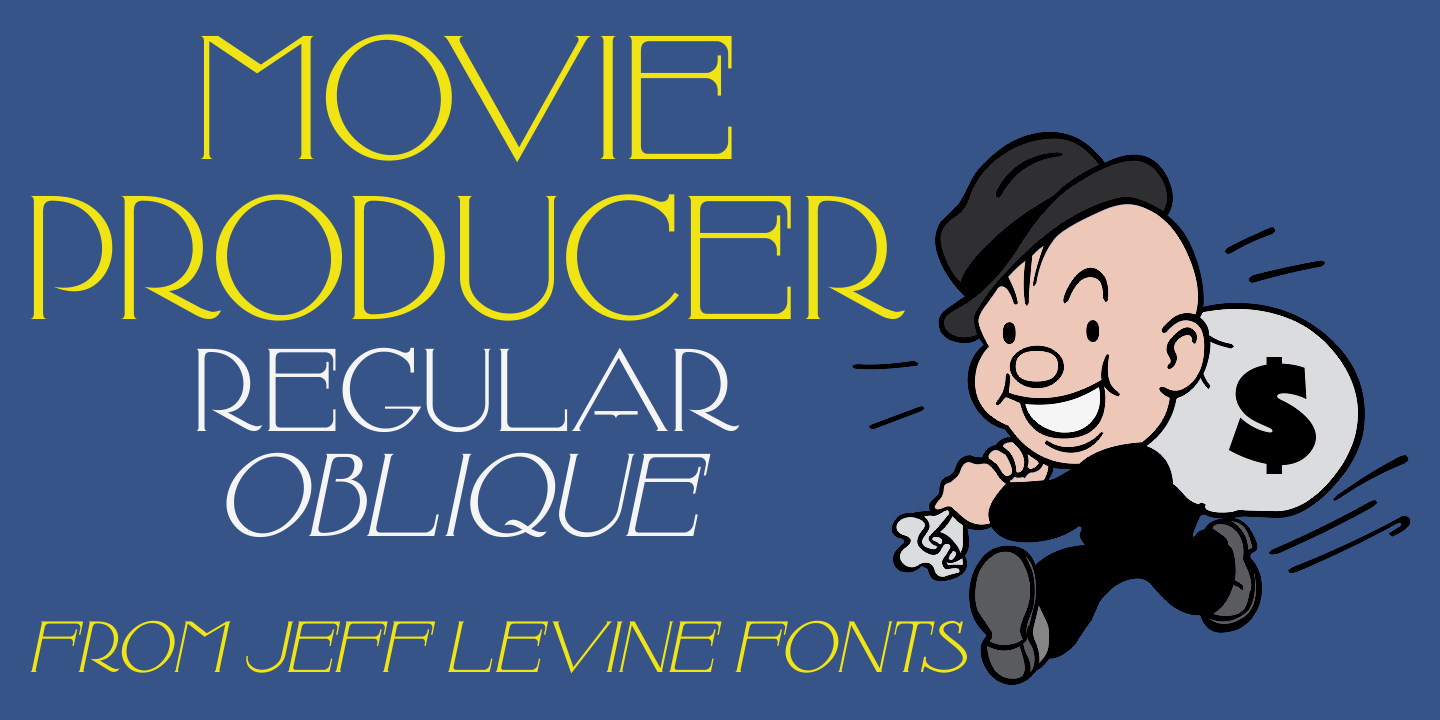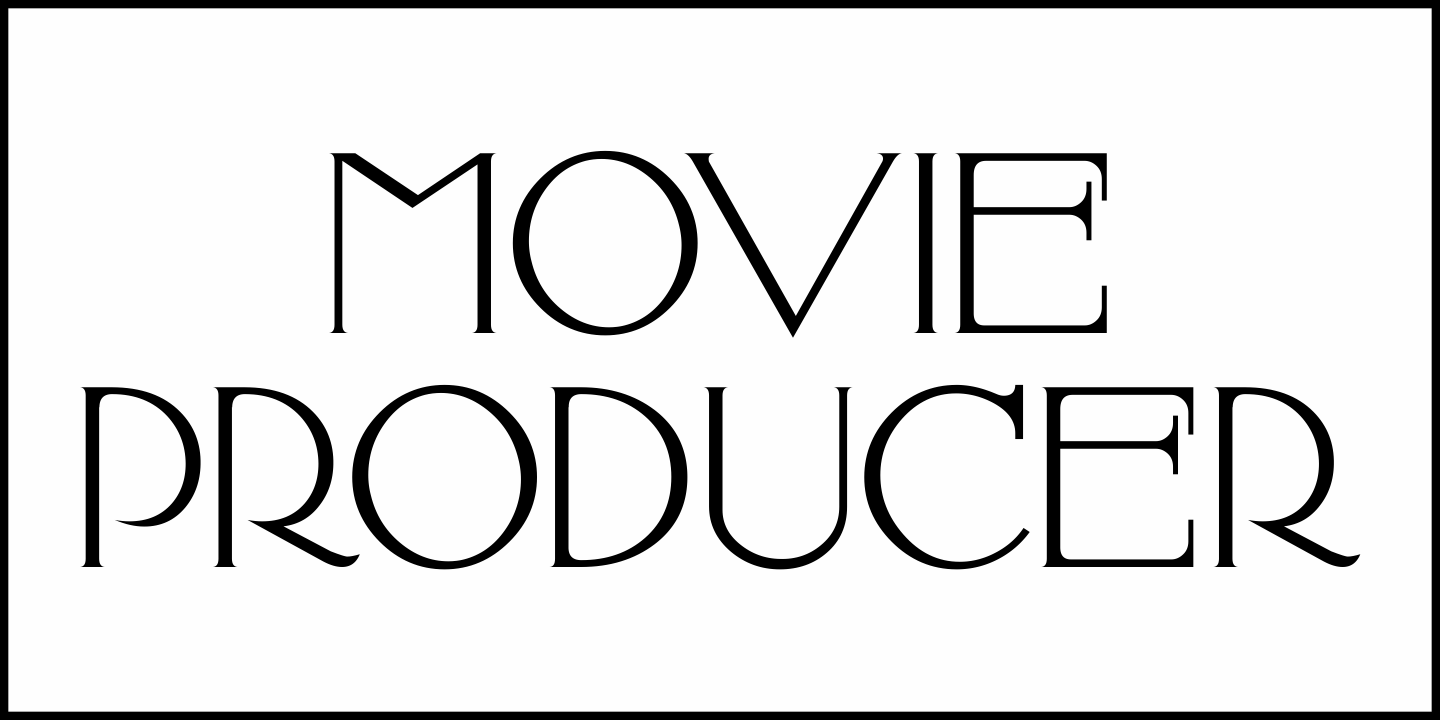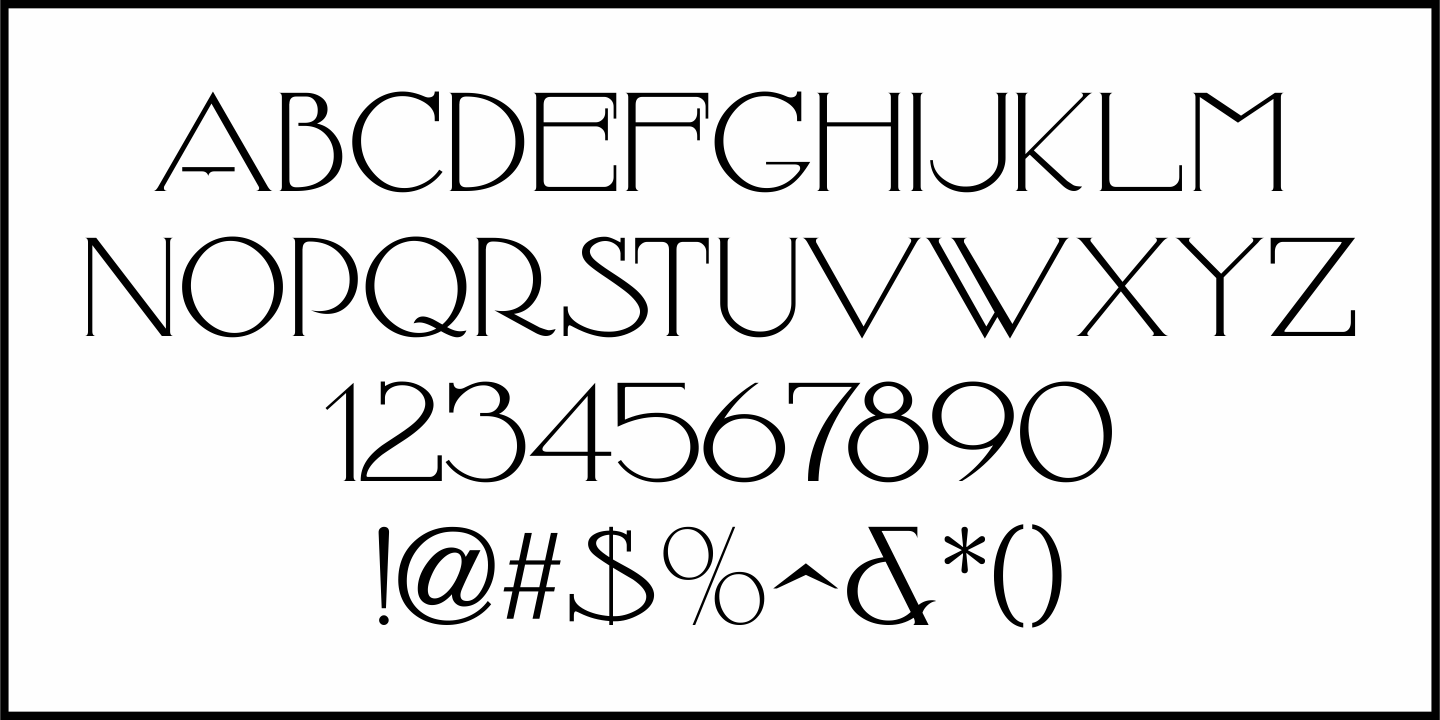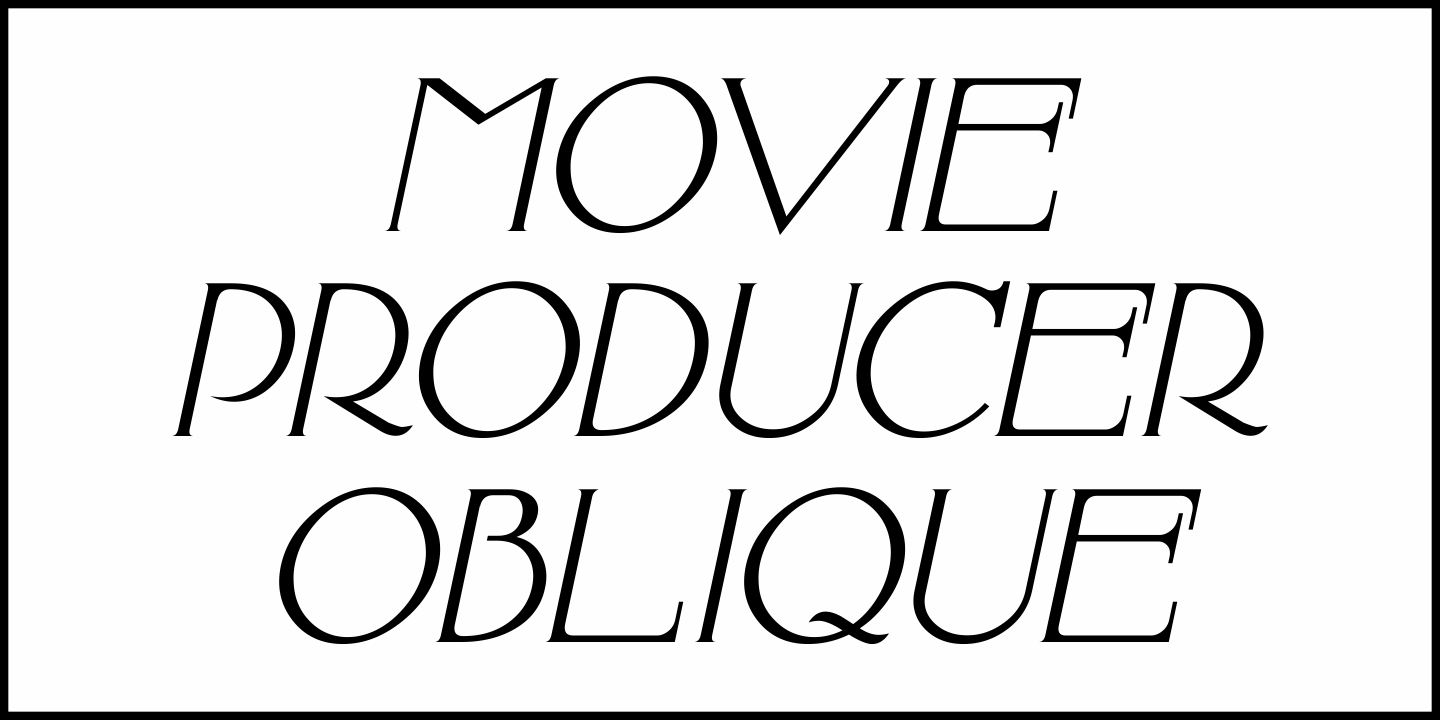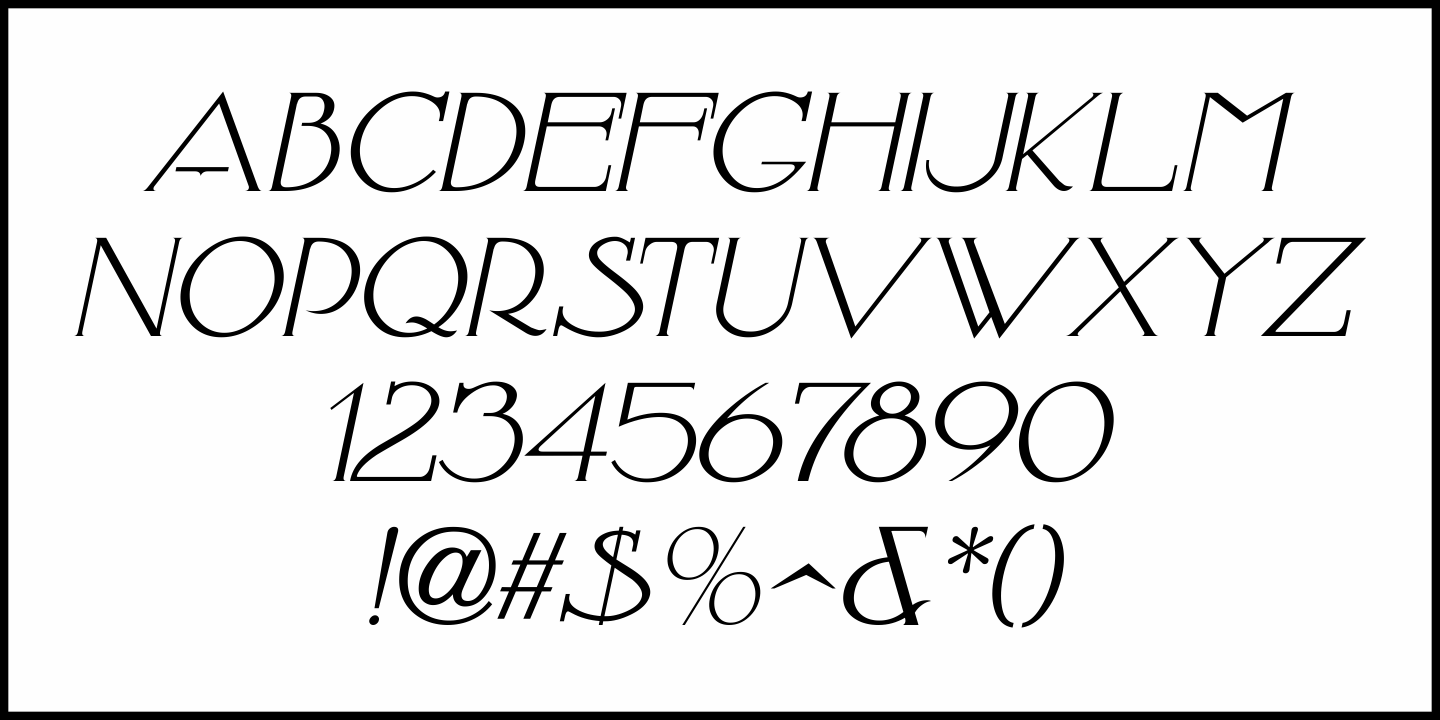
Movie Producer
The Nov. 13, 1915 and Nov. 27, 1915 issues of Moving Picture World carried ads for Jesse L. Lasky Productions in which the titles of the upcoming films were hand lettered in an elegant Art Nouveau spurred serif style.
This stylish alphabet is now available digitally as Movie Producer JNL in both regular and oblique versions.